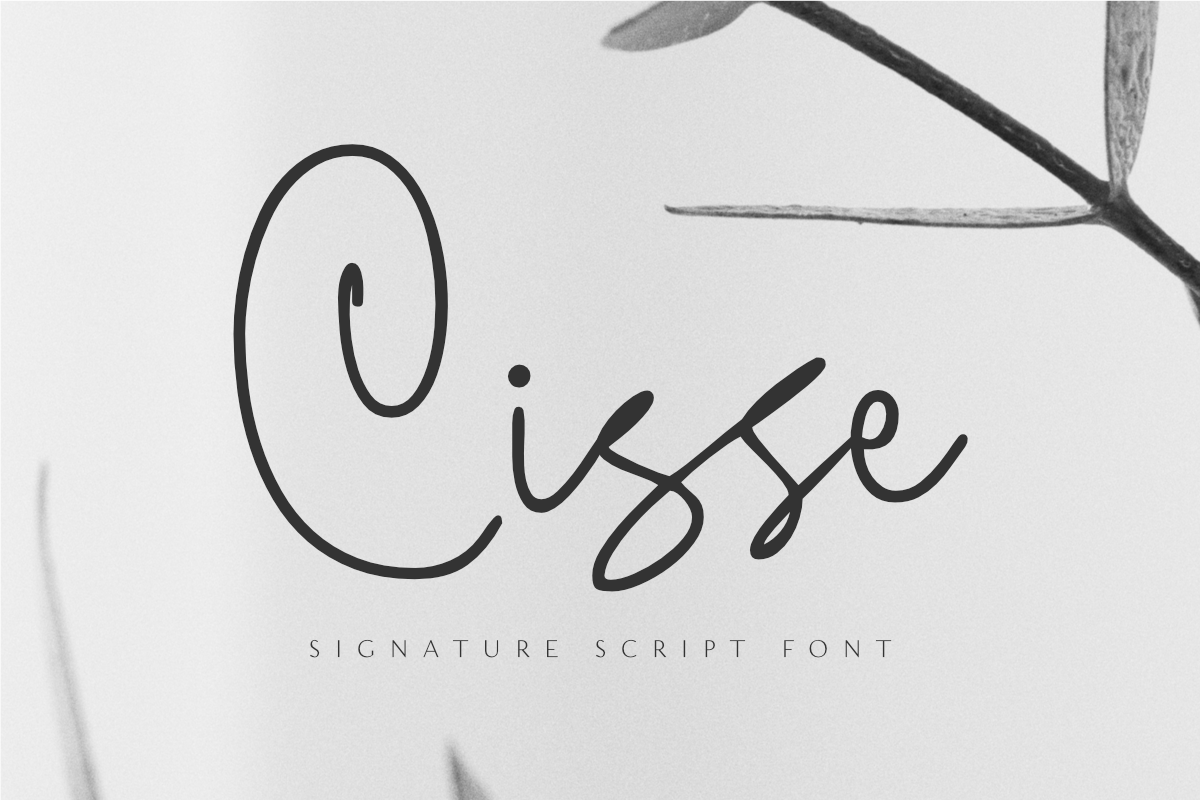
Cisse - Signature Script Font
Cisse is a signature script font that has a classy & elegant feel that gives you so many ways to create beautiful typography in your design projects. It's made up of smooth curves, which are also perfect for logos & wedding invitations. Use Cisse script font to make your design stand out!